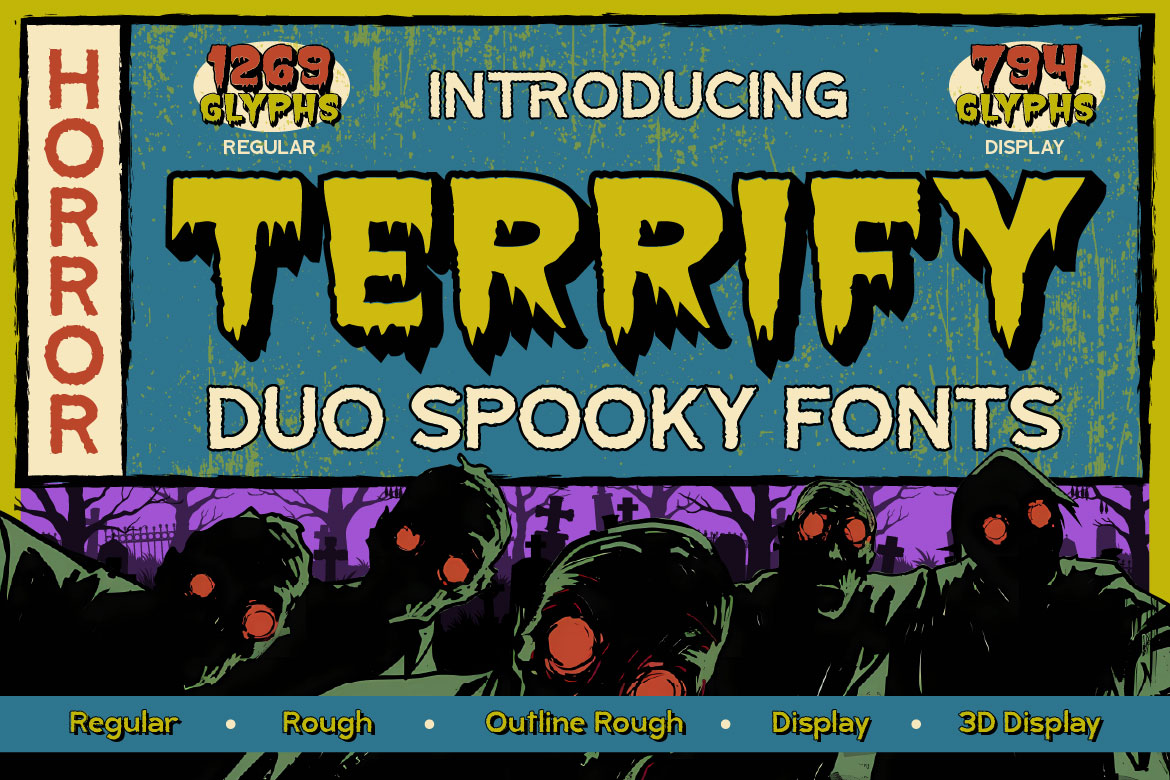
The summer heat is fading, and here comes autumn with its cozy vibes, warm colors, and a fresh wave of design inspiration. From pumpkin spice lattes to golden leaves, fall is the season where creativity feels extra comforting and your font choices should match that mood.
If you’re working on seasonal branding, event invitations, or cozy autumn themed projects, here are some font trends to keep your designs looking on-point this fall.
Nothing says “autumn” like a handwritten touch. Script fonts feel friendly, intimate, and perfect for seasonal greetings, café menus, or cozy product packaging. Think of them as the design equivalent of a warm blanket and hot cocoa.
Serif fonts work beautifully in fall designs because they bring a touch of sophistication. Use them for wedding invitations, branding, or editorial layouts to create a timeless look. Pair them with autumn palettes like burnt orange, mustard yellow, or deep burgundy—for extra charm.
If you want to capture that rustic, countryside vibe, vintage-style fonts are your go-to. They pair well with textured backgrounds, wood patterns, and handmade illustrations, giving your design an authentic seasonal feel.
A horror-themed font designed to bring eerie, mysterious, and gothic vibes into your designs. Terrify comes with 2 main styles: Display and Regular. The Regular style includes 3 variations: Regular, Rough, and Outline Rough, while the Display style includes Display and 3D Display.
With cracked textures and a bloody feel, Terrify delivers a theatrical and spine-chilling look — perfect for horror movie titles, Halloween invitations, creepy book covers, dark-themed merchandise, mystery branding, or even gothic/metal band logos. Think tombstone engravings, old horror posters, and vintage thriller vibes all in one font.
Your ultimate Indian-style display font that’s bursting with festive vibes! Inspired by the beauty of Diwali lights, traditional patterns, and elegant curves, Bharvati blends cultural charm with modern design flair. The bold strokes and flowing lines make it perfect for headlines, invitations, branding, or any project that needs a touch of India’s vibrant spirit.
It comes in two styles: Regular for a clean, polished look, and Ink Bleed for that artistic, handcrafted vibe. Whether you’re designing festival posters, packaging, social media graphics, or wedding cards, Bharvati will light up your design just like a Diwali diya.
Bring warmth, culture, and celebration into your typography with Bharvati!
So as you say goodbye to summer and welcome the autumn breeze, let your designs reflect the season’s warmth and coziness. Grab your favorite fonts, experiment with color palettes, and create something that feels like fall.